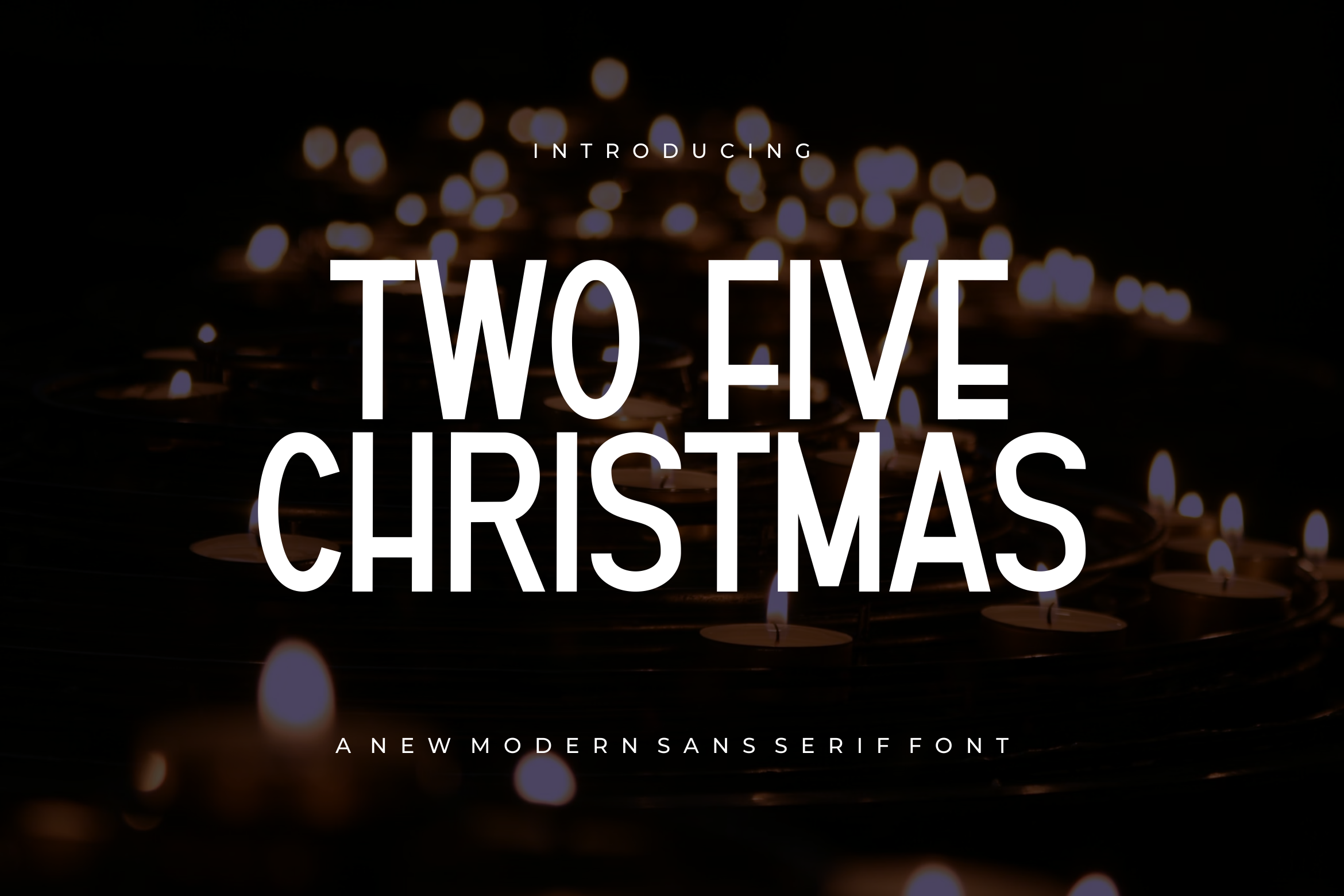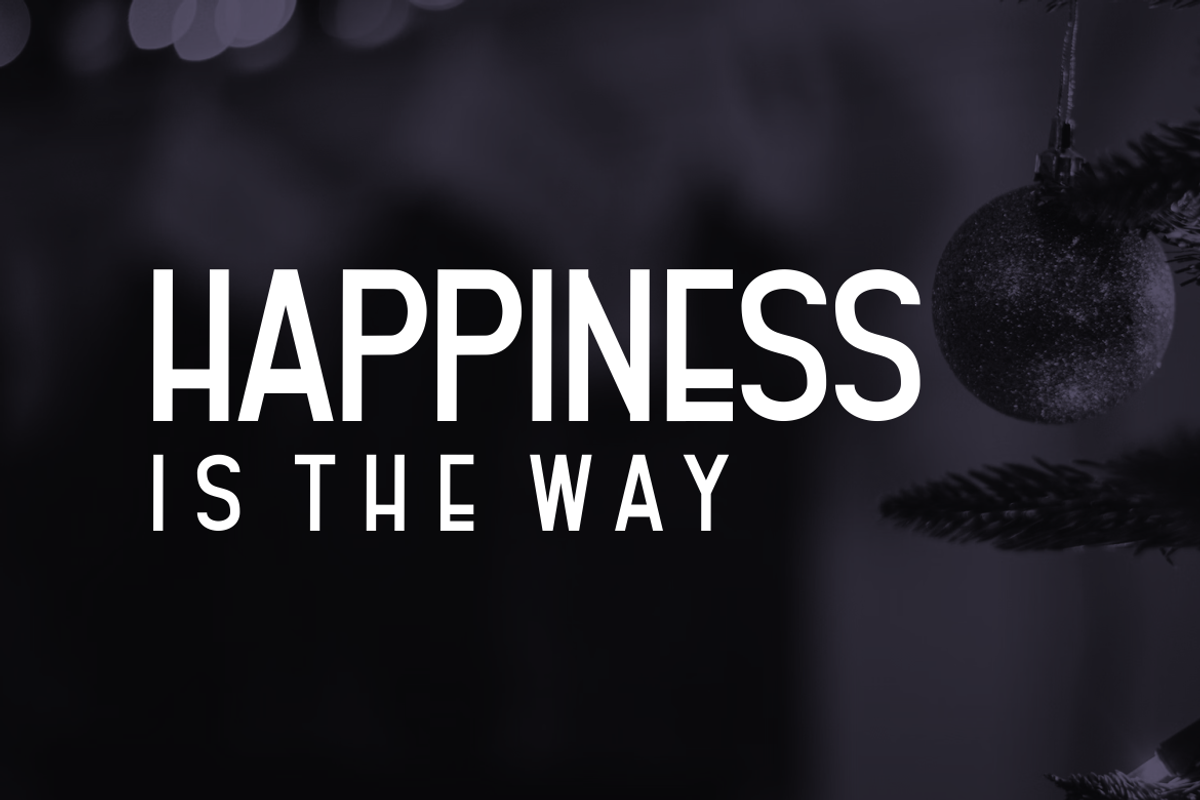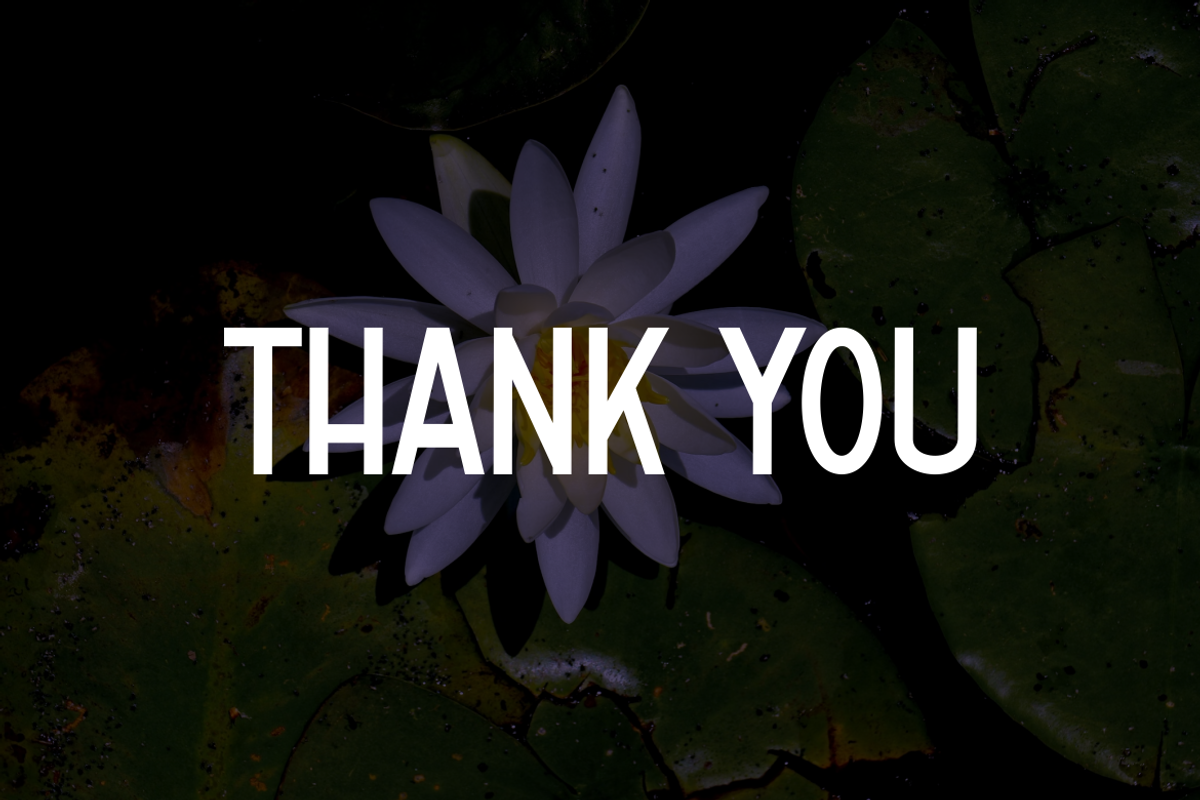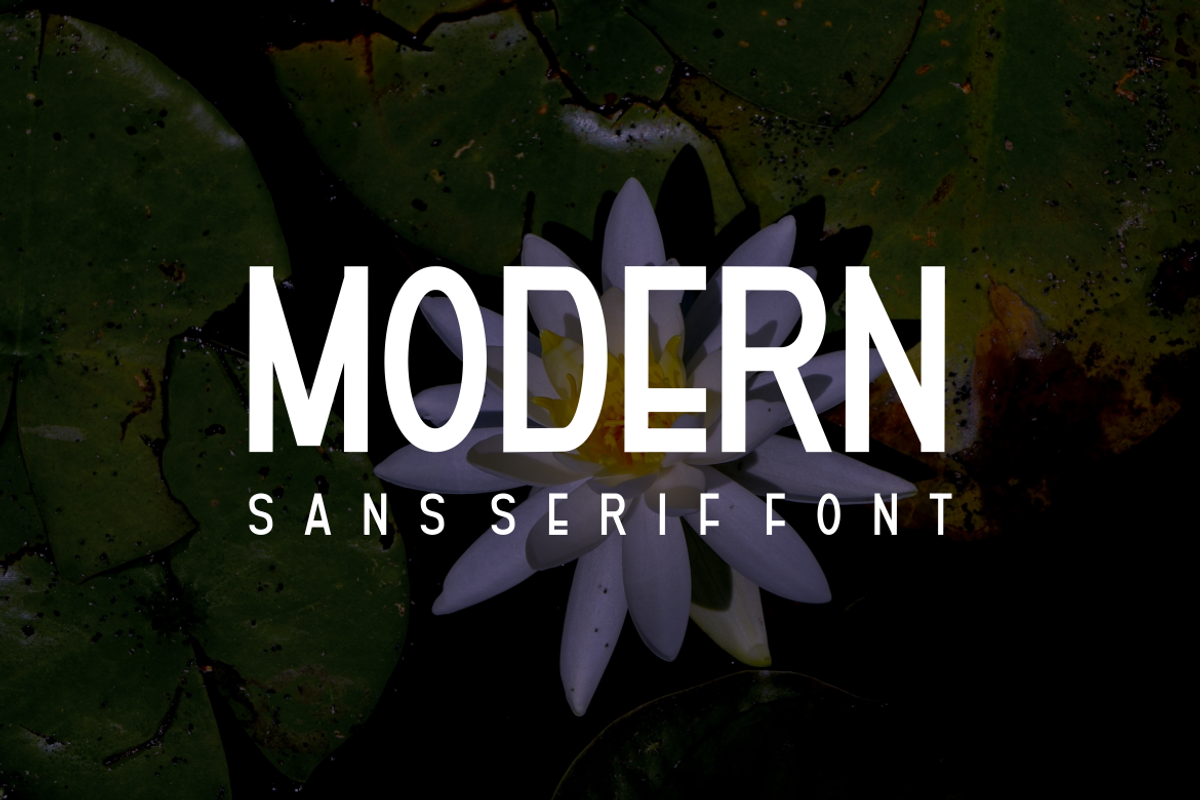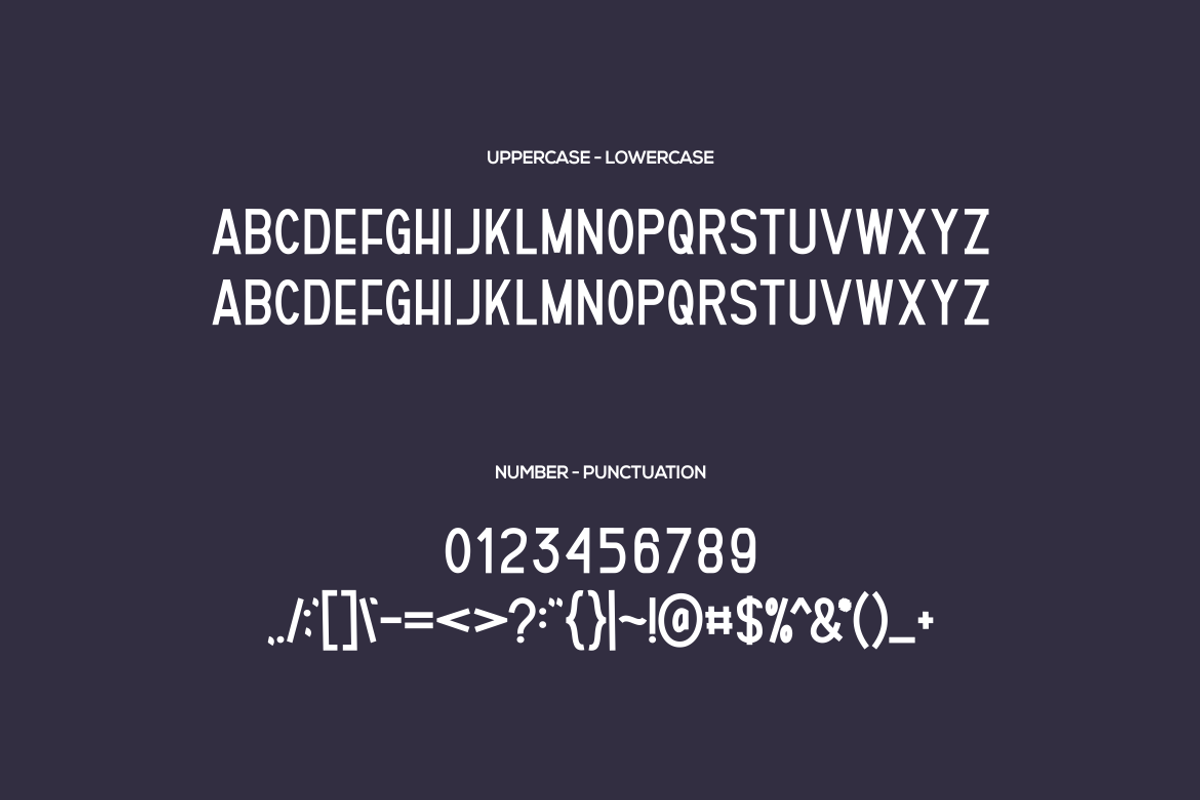
Two Five Christmas - Font
- Modern Font is a bold and authentic display font. The font is suitable for any branding project like logo, t-shirt printing,, and many more. outstanding in a wide range of contexts.